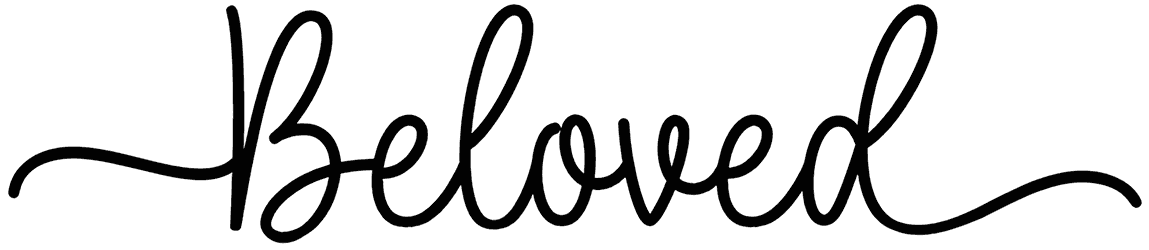
Beloved Font
Design quality like Beloved has made every designer love it and use it to add an artistic touch to their content. This handwritten font uses curves and personal elements to flourish your designs.
Although the lack of numbers and illegibility have caused some designers to hesitate to press the download button, by introducing this script font to your collection, you can give it a new life and find new ways to implement your creative ideas.